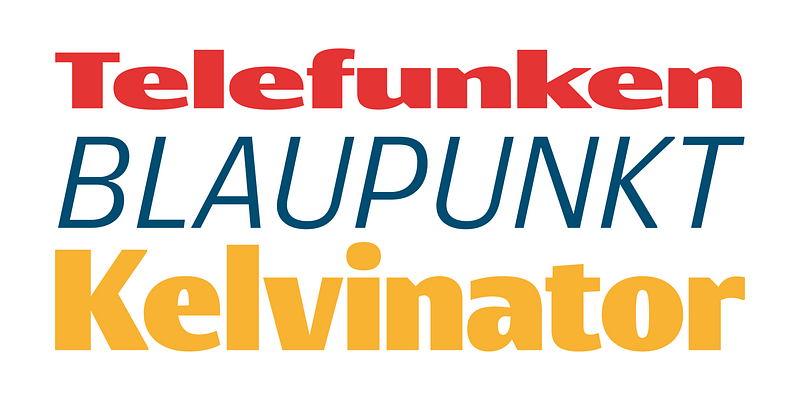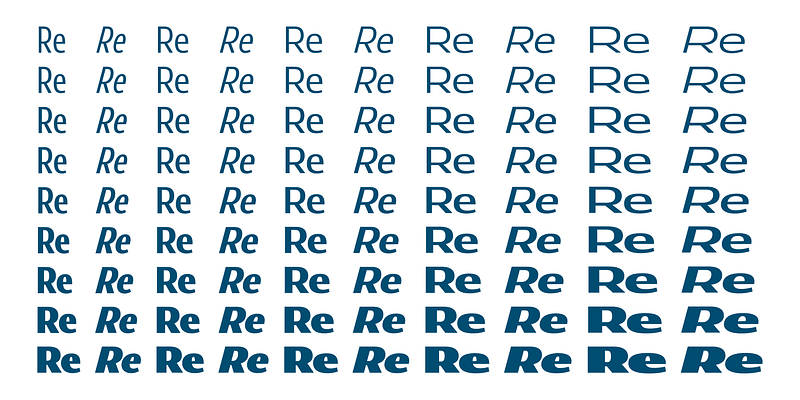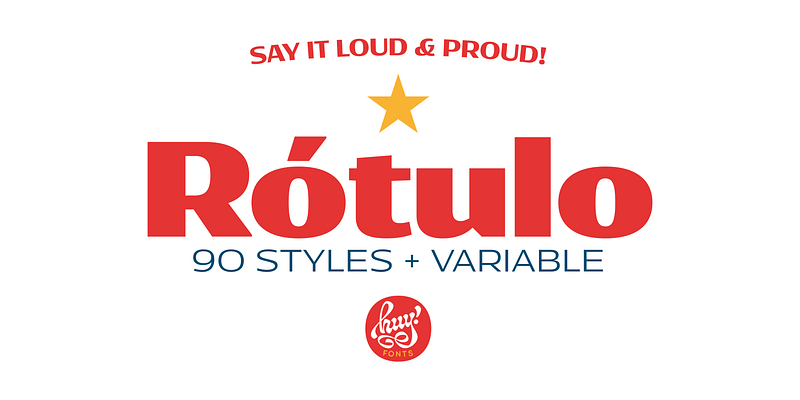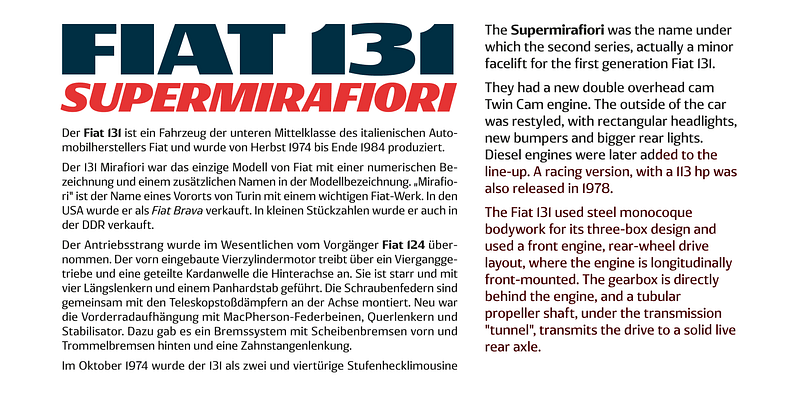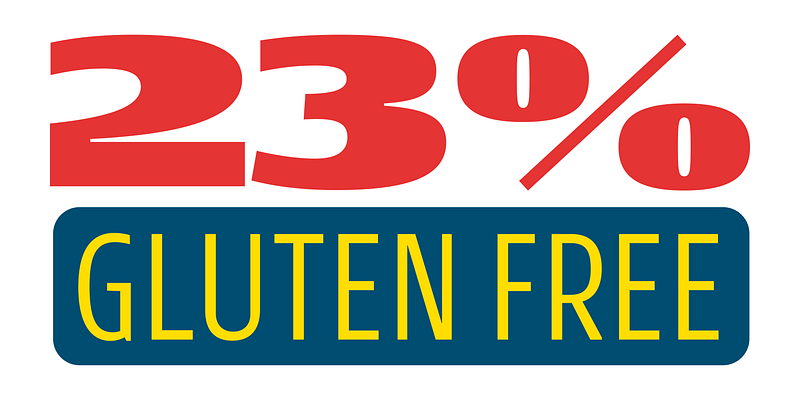
Rotulo is a contrasted sans family which combines the thick & thin signpainter’s style and some 70s feeling in a huge font family with 90 styles. A visit to an exhibition of Spanish movie posters by Jano was the beginning of Rótulo (Spanish for Sign) project. Classic thick & thin signpainter style was featured in many letterings of those posters, as it was a very common style in 60s and 70s Spanish design. Unfortunately, today very few Contrasted Sans are seen, something that was quite common years ago has fallen into disuse in favor of Helvetic monotony. Rótulo recapture all that personality, with an extense range of weights and widths to be used in striking headlines and short texts.